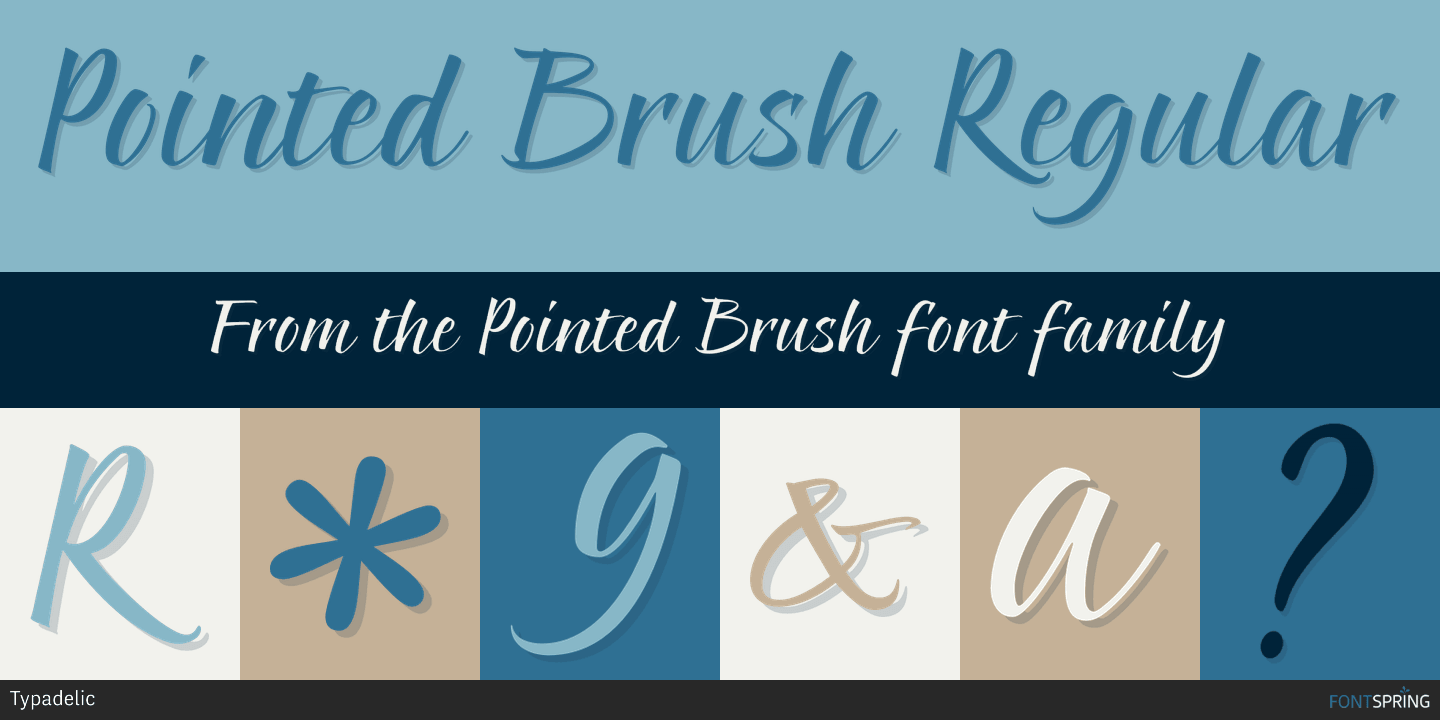
Pointed Brush Font . Pointed brush is available in postscript, truetype for. explore pointed brush fonts at myfonts. download pointed brush, provided on fonts.com from typadelic. a personalized cursive written with the pointed brush. The strange name of this font means nothing other than “brush,” but only the dutch understand. Discover a world of captivating typography for your creative projects. pointed brush is a script and brush script font published by typadelic. download pointed brush font free!
download pointed brush, provided on fonts.com from typadelic. a personalized cursive written with the pointed brush. The strange name of this font means nothing other than “brush,” but only the dutch understand. pointed brush is a script and brush script font published by typadelic. Discover a world of captivating typography for your creative projects. explore pointed brush fonts at myfonts. Pointed brush is available in postscript, truetype for. download pointed brush font free!
Pointed Brush Font The strange name of this font means nothing other than “brush,” but only the dutch understand. a personalized cursive written with the pointed brush. explore pointed brush fonts at myfonts. Discover a world of captivating typography for your creative projects. The strange name of this font means nothing other than “brush,” but only the dutch understand. pointed brush is a script and brush script font published by typadelic. download pointed brush font free! download pointed brush, provided on fonts.com from typadelic. Pointed brush is available in postscript, truetype for.
PointedBrush Font download free Pointed Brush Font pointed brush is a script and brush script font published by typadelic. The strange name of this font means nothing other than “brush,” but only the dutch understand. Discover a world of captivating typography for your creative projects. download pointed brush, provided on fonts.com from typadelic. download pointed brush font free! Pointed brush is available in postscript,. Pointed Brush Font.
30 Beautiful Free Brush Fonts Free Pretty Things For You Pointed Brush Font explore pointed brush fonts at myfonts. download pointed brush font free! download pointed brush, provided on fonts.com from typadelic. a personalized cursive written with the pointed brush. Discover a world of captivating typography for your creative projects. pointed brush is a script and brush script font published by typadelic. The strange name of this font. Pointed Brush Font.
The Top Five Best Brush Fonts and How to Use Them — Mariah Althoff Pointed Brush Font Discover a world of captivating typography for your creative projects. The strange name of this font means nothing other than “brush,” but only the dutch understand. download pointed brush, provided on fonts.com from typadelic. a personalized cursive written with the pointed brush. pointed brush is a script and brush script font published by typadelic. download pointed. Pointed Brush Font.
4 Brush Fonts Bundle SVG Ttf Brush Alphabet SVG Instant Etsy Pointed Brush Font download pointed brush font free! explore pointed brush fonts at myfonts. Pointed brush is available in postscript, truetype for. Discover a world of captivating typography for your creative projects. pointed brush is a script and brush script font published by typadelic. a personalized cursive written with the pointed brush. download pointed brush, provided on fonts.com. Pointed Brush Font.
Pointed Brush Fonts « FontHaus Pointed Brush Font download pointed brush, provided on fonts.com from typadelic. a personalized cursive written with the pointed brush. download pointed brush font free! Discover a world of captivating typography for your creative projects. Pointed brush is available in postscript, truetype for. explore pointed brush fonts at myfonts. pointed brush is a script and brush script font published. Pointed Brush Font.
37 High Quality Brush Fonts To Add Edge To Your Projects HipFonts Pointed Brush Font Pointed brush is available in postscript, truetype for. a personalized cursive written with the pointed brush. Discover a world of captivating typography for your creative projects. download pointed brush, provided on fonts.com from typadelic. pointed brush is a script and brush script font published by typadelic. The strange name of this font means nothing other than “brush,”. Pointed Brush Font.
Brush Point Font Dfonts Pointed Brush Font Discover a world of captivating typography for your creative projects. a personalized cursive written with the pointed brush. pointed brush is a script and brush script font published by typadelic. The strange name of this font means nothing other than “brush,” but only the dutch understand. Pointed brush is available in postscript, truetype for. explore pointed brush. Pointed Brush Font.
Free Font Collection 18 Brush Fonts — Journey With Jess Inspiration Pointed Brush Font Pointed brush is available in postscript, truetype for. pointed brush is a script and brush script font published by typadelic. a personalized cursive written with the pointed brush. download pointed brush font free! Discover a world of captivating typography for your creative projects. download pointed brush, provided on fonts.com from typadelic. The strange name of this. Pointed Brush Font.
25+ HandDrawn, Free Brush Fonts Hipsthetic Pointed Brush Font download pointed brush, provided on fonts.com from typadelic. a personalized cursive written with the pointed brush. explore pointed brush fonts at myfonts. Discover a world of captivating typography for your creative projects. The strange name of this font means nothing other than “brush,” but only the dutch understand. Pointed brush is available in postscript, truetype for. . Pointed Brush Font.